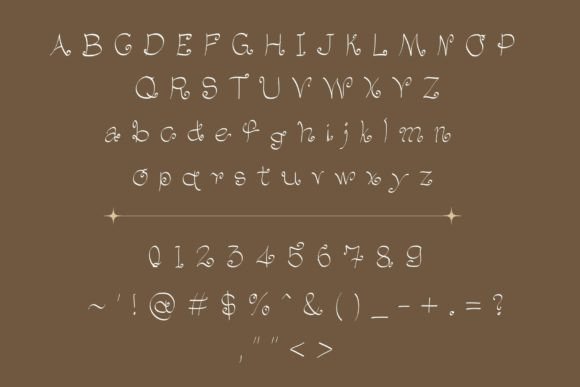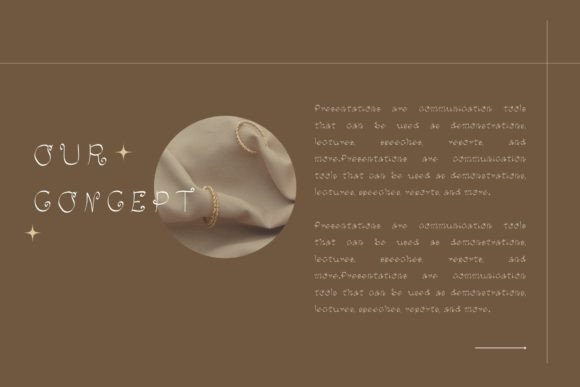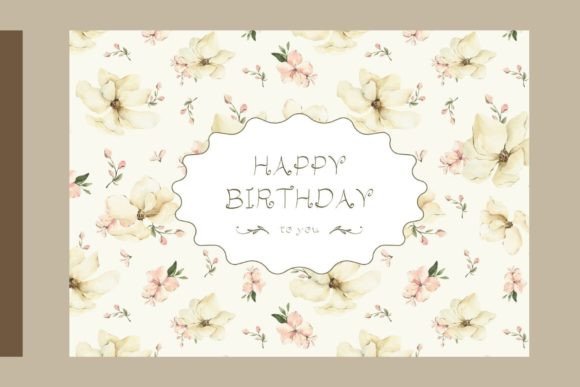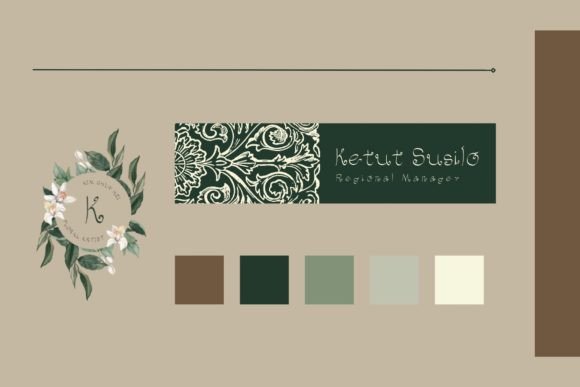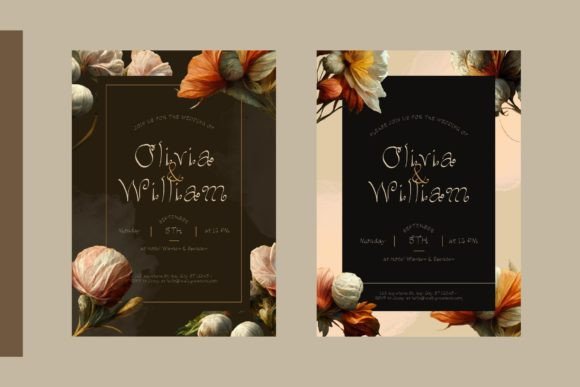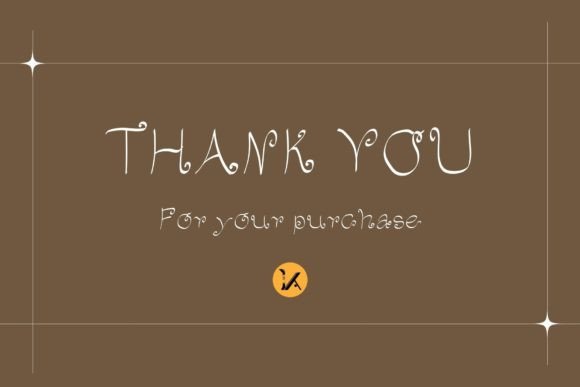
The Perfect Blend of Elegance and Modernity: Introducing the Bailey Font
Have you ever sat in front of your computer, staring at a blank canvas, trying to bring your creative vision to life? It’s a moment many designers know all too well. But what if you had the perfect tool to help you breathe life into your projects? Enter the Bailey Font, a beautifully crafted handwritten font that combines classic calligraphy with a modern twist.
The Bailey Font is more than just a font – it’s a key to unlocking your full creative potential. With its elegant and sophisticated style, it’s the perfect addition to any project, from wedding invitations to branding materials. As a designer, you’ll appreciate the versatility and timelessness of the Bailey Font, making it a valuable asset to your toolkit.
Bailey Font Key Features
- Unique Characteristics: Bailey Font features a modern, elegant design with a unique blend of geometric and organic elements.
Designer Review: Bailey Font
As a designer, I’ve had the chance to work with various fonts, and Bailey Font is one of them. Let’s dive into what I think of it.
- It’s a beautiful script font, perfect for titles and headings. The flowing lines and swashes give it a high-end, elegant feel.
- The font is highly legible, even at smaller sizes, making it suitable for a wide range of applications.
- The font family includes several weights and styles, providing ample options for designers to choose from.
- The font may not be the best choice for body text, as it can be quite ornate and overwhelming in large blocks of text.
- The font’s swashes and flourishes can be distracting if not used carefully.
Overall, I think Bailey Font is a great addition to any designer’s toolkit. While it has some limitations, its unique style and high legibility make it a great choice for titles, headings, and other decorative text elements. Just be sure to use it wisely and in moderation.
Tips for Getting the Most Out of Bailey Font
To get the most out of Bailey Font, try the following:
- Combine Bailey Font with other fonts to create a unique and visually appealing design.
- Use Bailey Font to add a touch of elegance and sophistication to your designs.
Common Use Cases for Bailey Font
Bailey Font is commonly used in:
- Formal event invitations and announcements.
- Business cards and marketing materials. Alternatives to Bailey Font